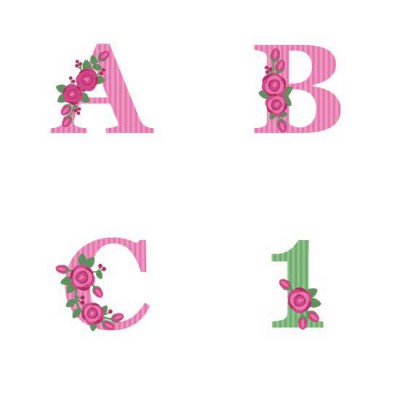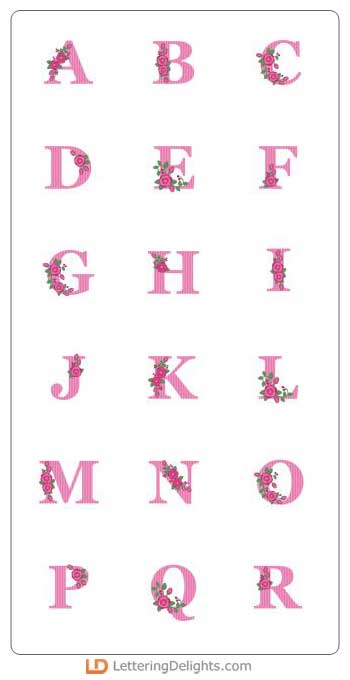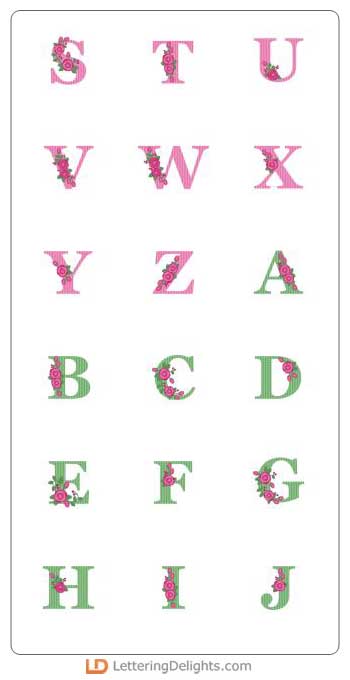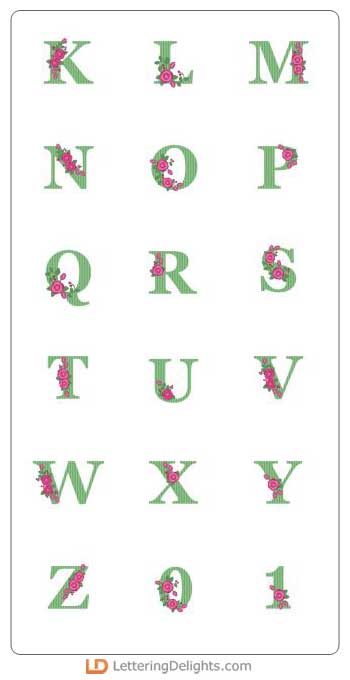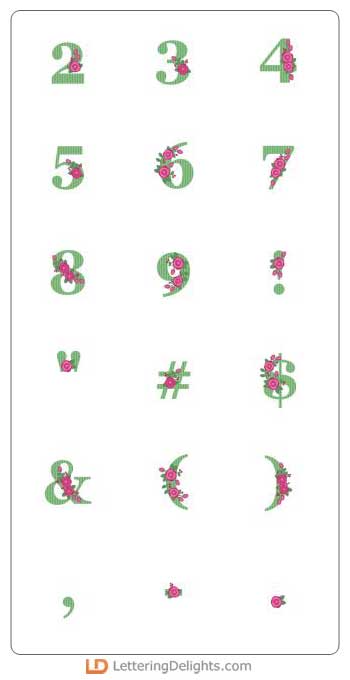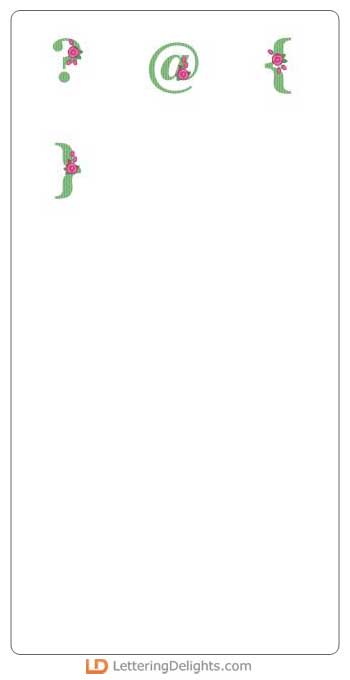
What a lovely combination pink and green make...so fresh and Spring-y, so colorful as we come out of winter's drab, and just in time to tell Mum how totally outstanding she is!